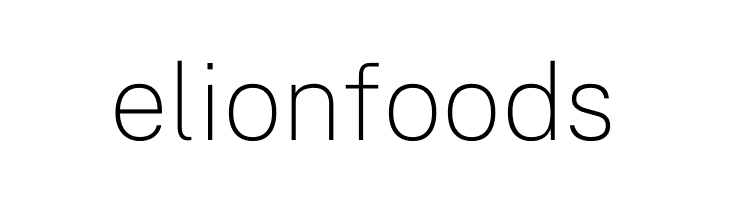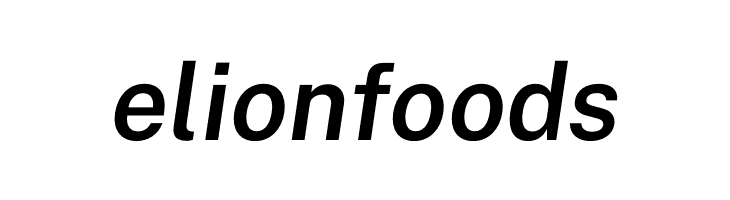
A modern, italic sans-serif font with medium contrast and balanced spacing.
A modern, italic sans-serif font with balanced proportions and clear readability.
A clean, modern sans-serif font with uniform, geometric letterforms and a light weight.
A clean, modern sans-serif font with light weight and low contrast.
A modern, light, italic sans-serif font with balanced spacing and clean lines.
A modern, clean sans-serif font with uniform strokes and excellent readability.
A modern, clean sans-serif font with excellent readability and balance.
A modern, medium-weight italic sans-serif font with clean lines and normal spacing.
A clean, modern sans-serif typeface with excellent readability.
A modern, clean sans-serif font with uniform stroke width and excellent readability.